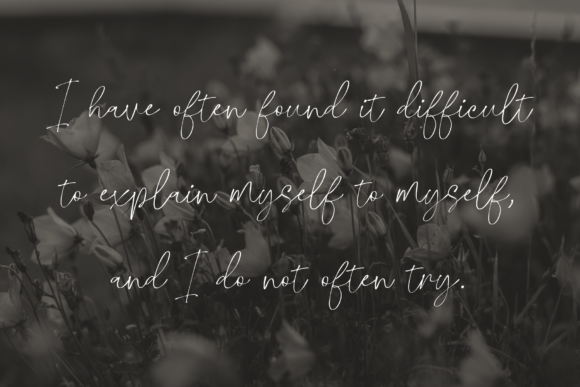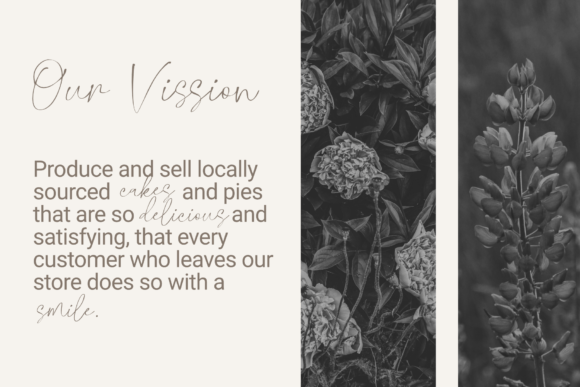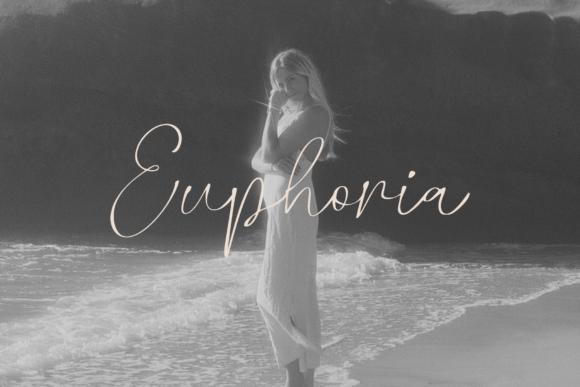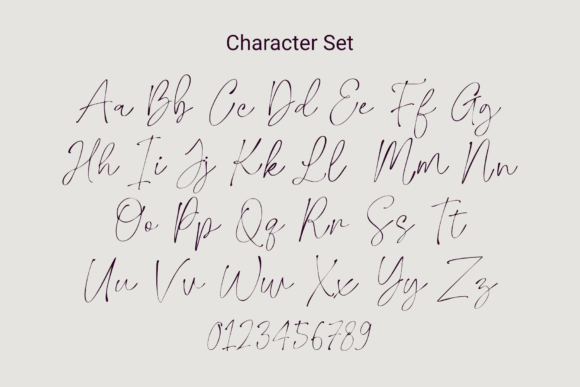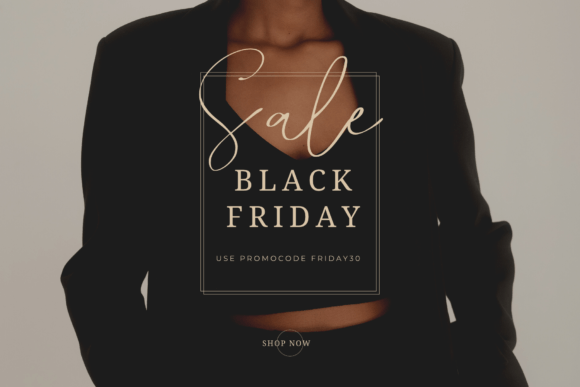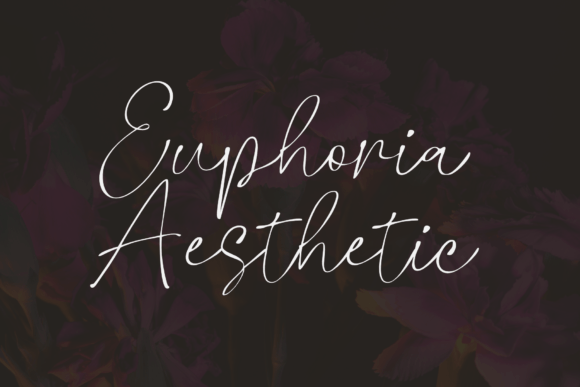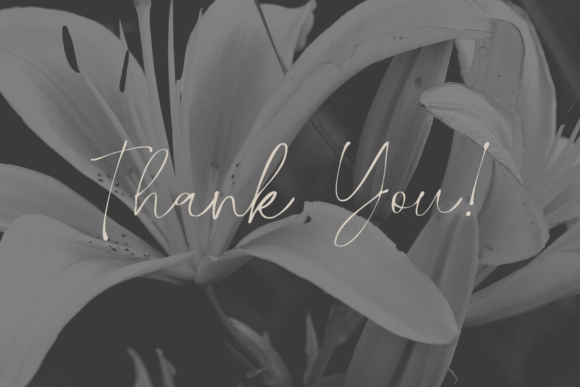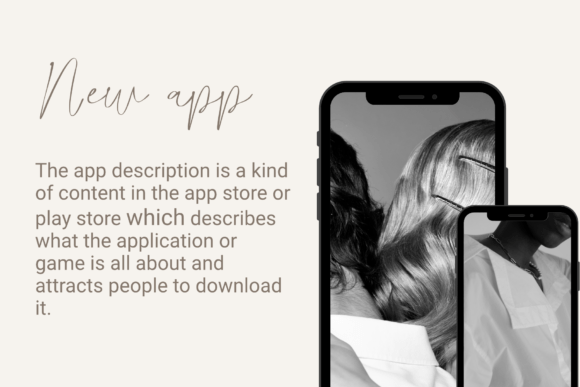
Glossily Enigmatic Font
About Glossily Enigmatic Font
**Glossily Enigmatic** is a modern and naturally handwritten font that exudes elegance and sophistication. It carries a charming and chic impression, adding a touch of warmth and cozy style to your various design projects, including weddings, stationery, logos, social media quotes, branding identity, and more.
The font’s modern and natural handwritten style is at the heart of its appeal. It possesses a unique elegance that resonates with viewers, making your designs stand out with a sense of refined beauty. Whether you’re crafting wedding invitations or creating a captivating brand identity, **Glossily Enigmatic** effortlessly adapts to diverse design contexts.
**Glossily Enigmatic** is versatile in both digital and print applications. Whether you’re incorporating it into digital designs or using it for printed materials, the font retains its natural and elegant character. Its readability ensures that your message is conveyed effectively, while its handwritten style adds a touch of authenticity.
What sets **Glossily Enigmatic** apart is its ability to evoke a warm and cozy feeling. It invites your audience to connect with your creative ideas in a way that resonates with its charming and chic quality. With **Glossily Enigmatic** as part of your creative toolkit, you have the means to infuse a sense of refinement and comfort into your designs, making them memorable and inviting.
**Glossily Enigmatic** offers a range of customization options, allowing you to fine-tune your text to match your creative vision precisely. This flexibility empowers you to craft designs that align with your artistic preferences with precision.
In conclusion, **Glossily Enigmatic** is more than just a font; it’s a design asset that elevates your creative projects with elegance, warmth, and a touch of chic charm. Embrace its natural handwritten style, and let it inspire you to create designs that resonate with sophistication and comfort. With **Glossily Enigmatic** at your disposal, your creative possibilities are expansive, enabling you to create memorable and inviting works of art through its modern and captivating typography.